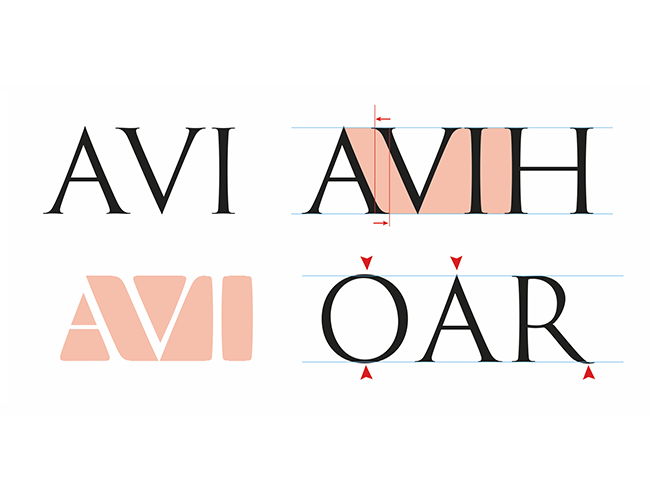
Typography: Form and Function Part 1
Olcar AlcaideThe Sign in Typography
The term sign, derived from the Latin signum, refers to an object or graphic form that represents or replaces another reality, either by convention or by nature. In typography, a sign is a visible element that conveys meaning through writing.
The linguistic sign is a perceptible entity that refers to something absent. It is made up of three inseparable components: the signifier (the form), the signified (the concept), and the referent (the object or idea in reality). Meaning emerges from the relationship between these elements.
Phonetic signs are designed to represent speech sounds in a precise and consistent way. In the International Phonetic Alphabet (IPA), signs are organized into three main groups:
- Letters, which represent basic sounds
- Diacritics, which modify or specify sound features
- Suprasegmental symbols, which indicate prosodic features such as stress, duration, and intonation
Punctuation marks are also part of the writing system. Their function is to structure text, indicate pauses, and organize meaning within the linear flow of writing.
Diacritics are graphic elements that alter the value of a sign. Common examples include accent marks, the diaeresis, and the tilde in the Spanish letter ñ.
Legibility and Readability
Legibility refers to how easily individual letters can be recognized. It depends on the formal characteristics of letterforms and on the reader’s cultural familiarity with them.
Readability refers to how easily a text can be read as a continuous whole. It is influenced by typographic composition: spacing, line length, alignment, and the appropriate use of typefaces.
A typeface may be highly legible but poorly readable if it is used incorrectly. The opposite situation is uncommon.
Legibility is influenced by several factors:
- Cultural factors, related to reading habits
- Perceptual factors, related to letterform design
- Emotional factors, linked to associations generated by typographic forms
Among these, cultural familiarity is often the most decisive.
Reading fluency depends on the harmonious arrangement of letters, words, and lines. In typography, this quality is sometimes referred to as readability or visual comfort. Clear criteria exist to evaluate whether a text composition supports or hinders reading.
Eye Movements in Reading: Saccades and Fixations
Reading involves specific eye movement patterns. The most important are saccades and fixations.
Saccades are rapid eye movements that reposition the gaze from one point to another, placing information on the fovea, the area of highest visual acuity. During a saccade, visual perception is briefly suppressed, which is why eye movements themselves are not perceived.
Fixations are short pauses during which visual information is processed. They typically last between 200 and 350 milliseconds and include both motor stabilization and cognitive processing. Meaning is extracted during fixations, not during saccades.
Reading efficiency depends on the balance between these two processes. Well-designed typography supports predictable eye movements and reduces unnecessary fixation time.
Character Spacing
Character spacing is a key factor in typographic legibility. It refers to the spatial relationship between letters along the baseline.
Professional typefaces include carefully designed spacing, but understanding its principles is essential for evaluating and adjusting text. Glyphs differ in shape, yet recurring structural patterns allow for consistent spacing across the alphabet.
The goal of spacing is to achieve uniform optical white space between characters. This is not based on equal measurements, but on perceived visual balance.
To achieve this, type designers define sidebearings, the lateral margins of each glyph. When two characters are placed next to each other, their sidebearings combine to create the appropriate visual space. Proper spacing prevents gaps, collisions, and irregular texture, all of which negatively affect reading.
Lowercase letters require special attention, as they dominate continuous text and largely determine overall readability.